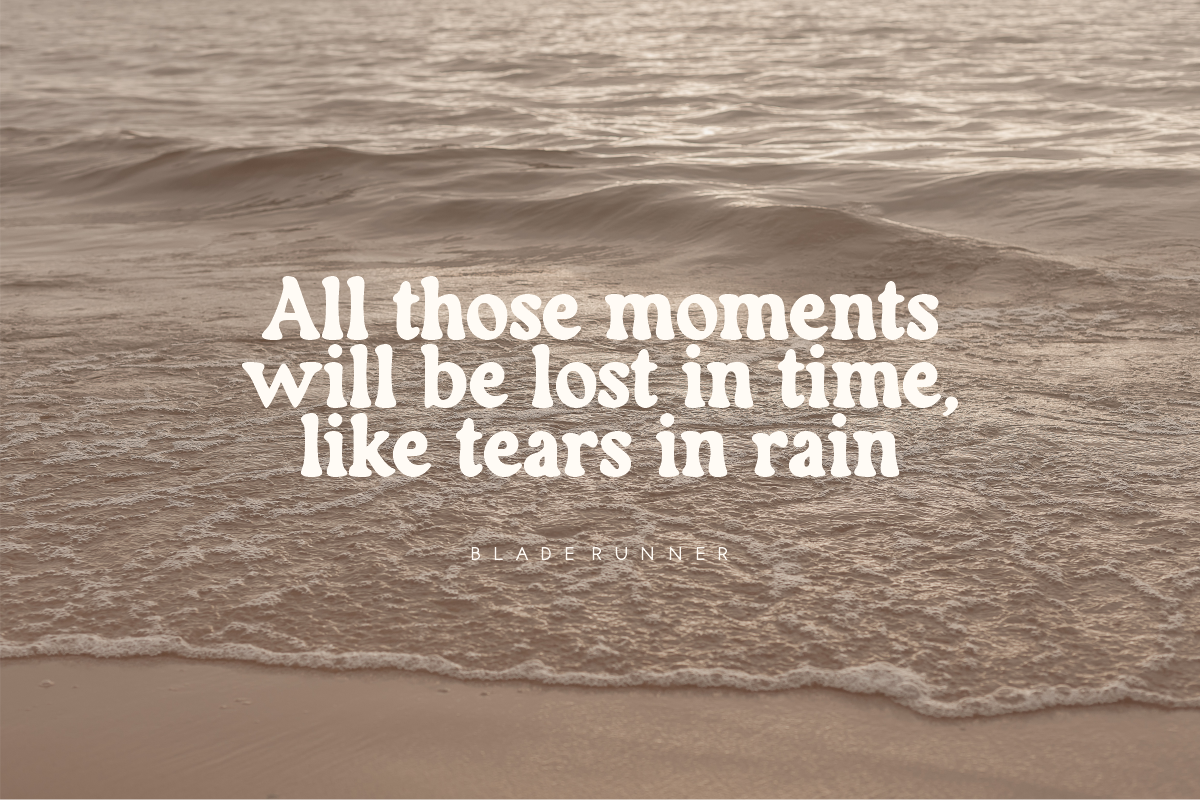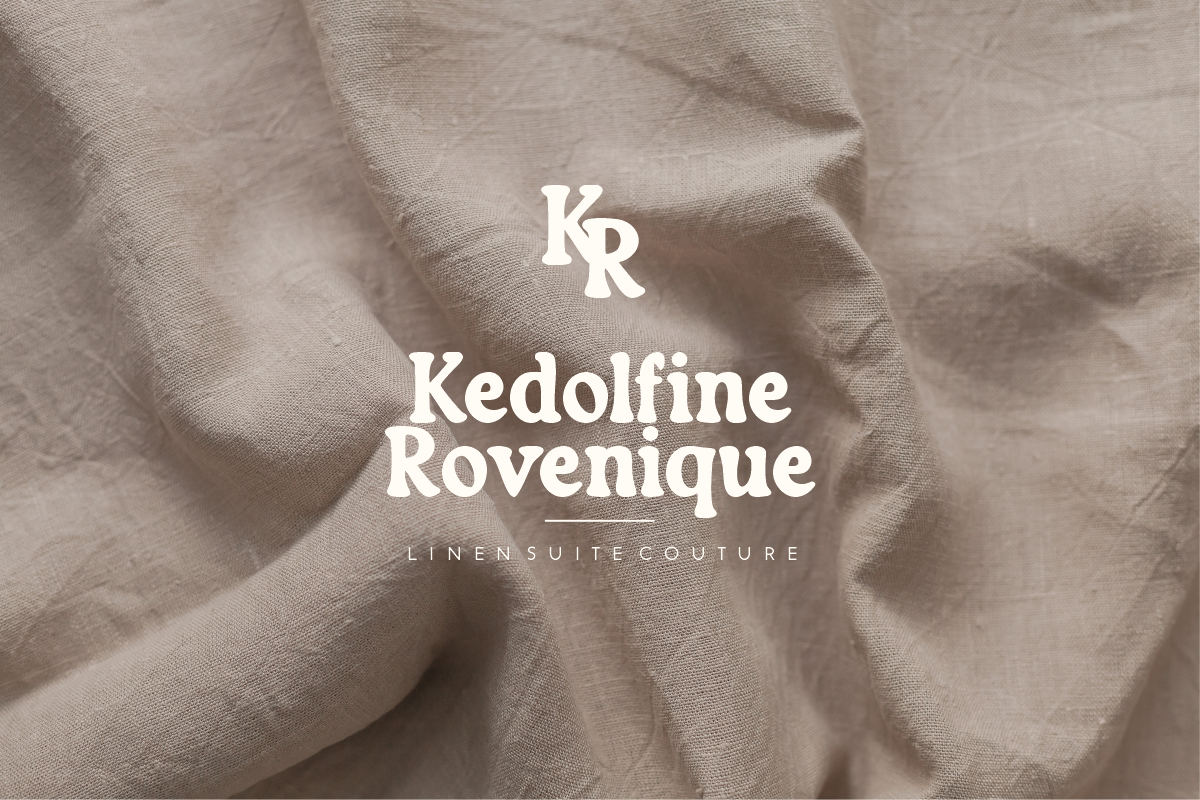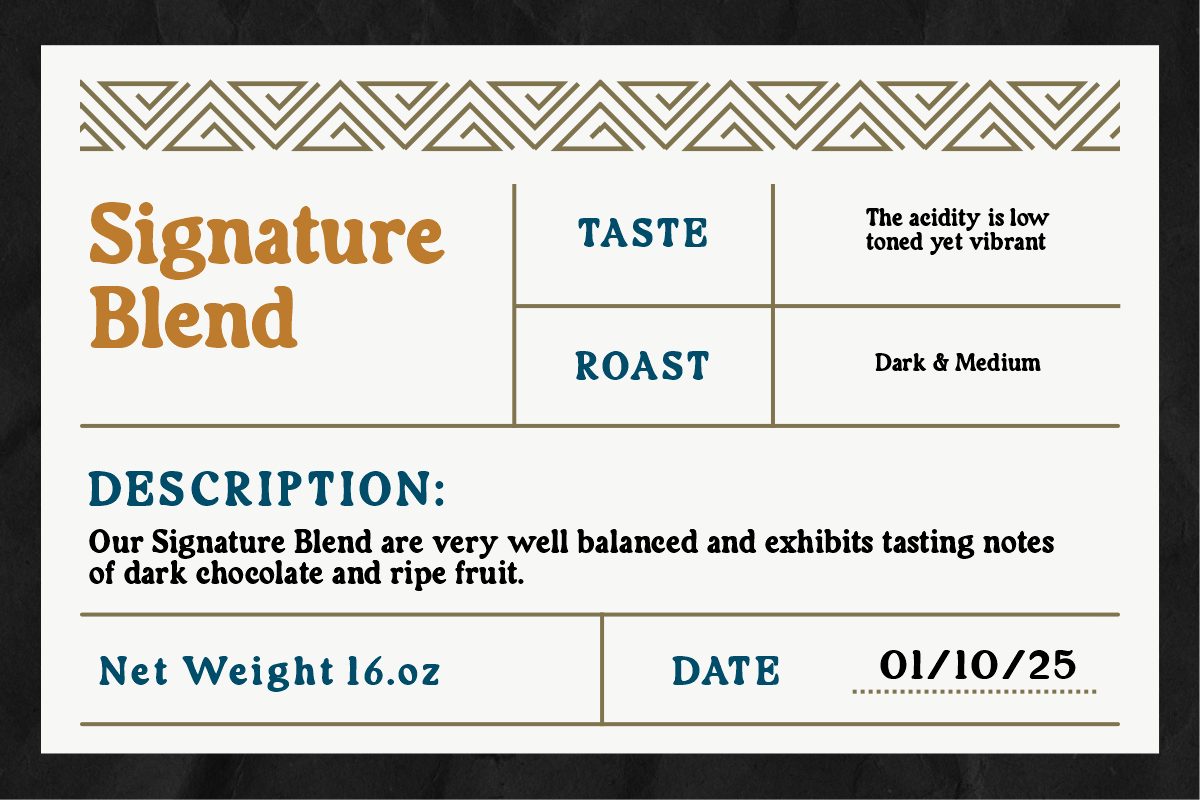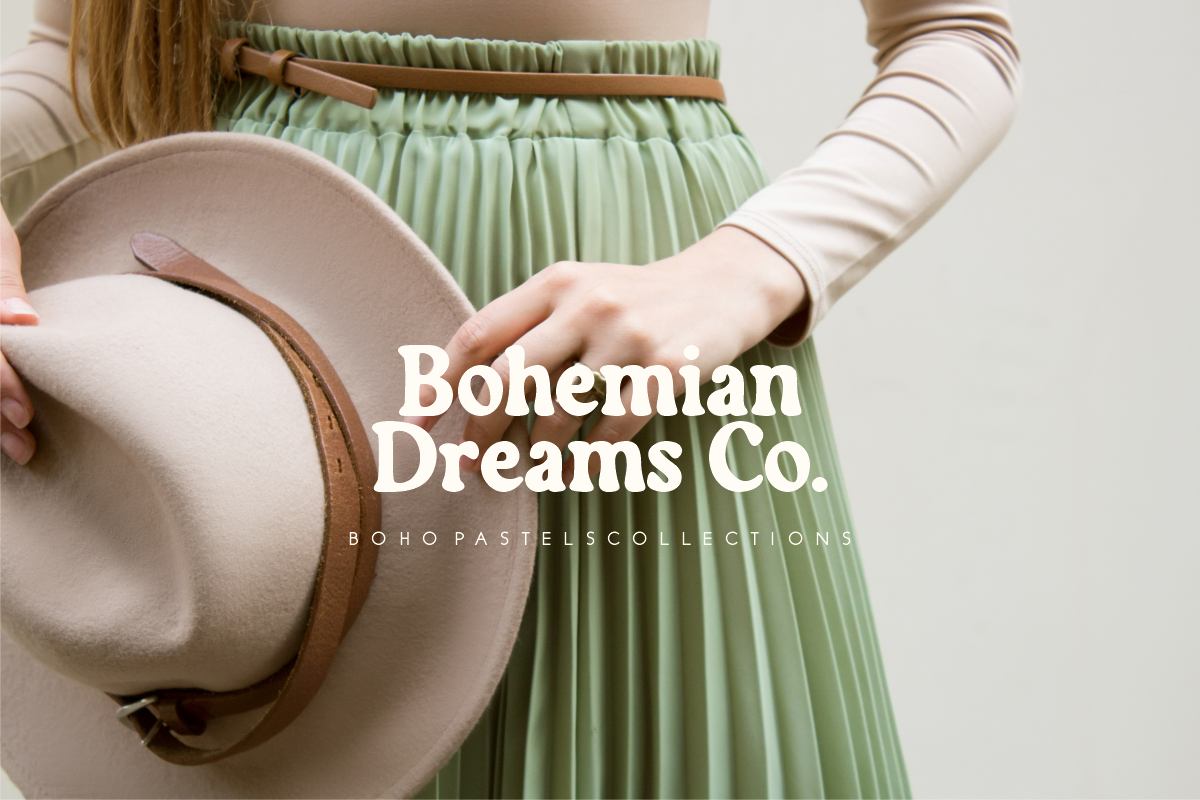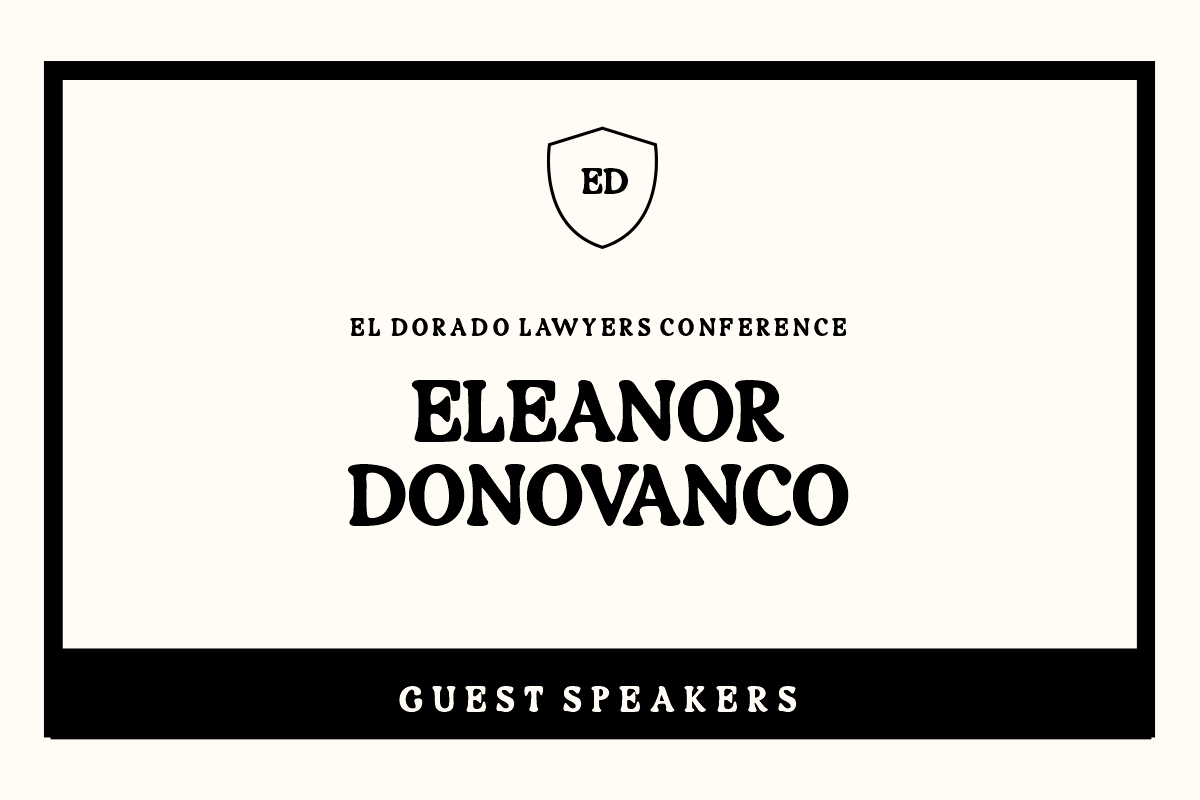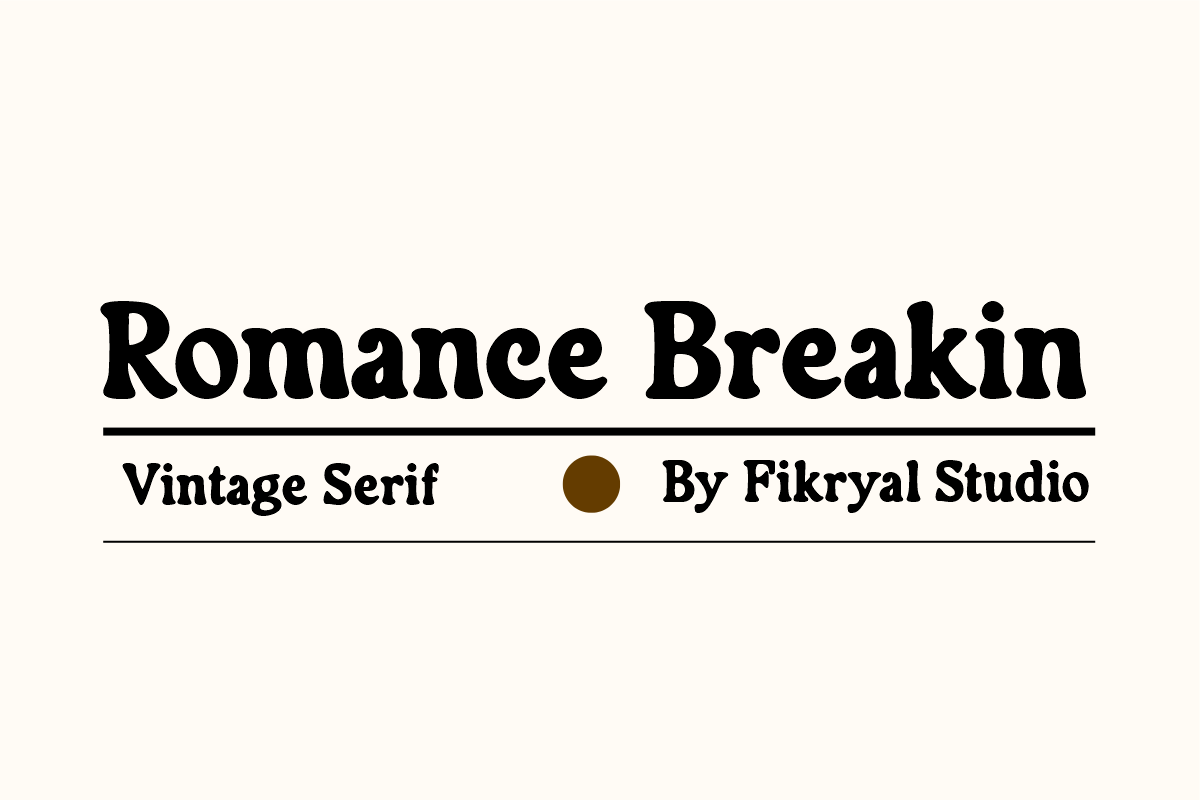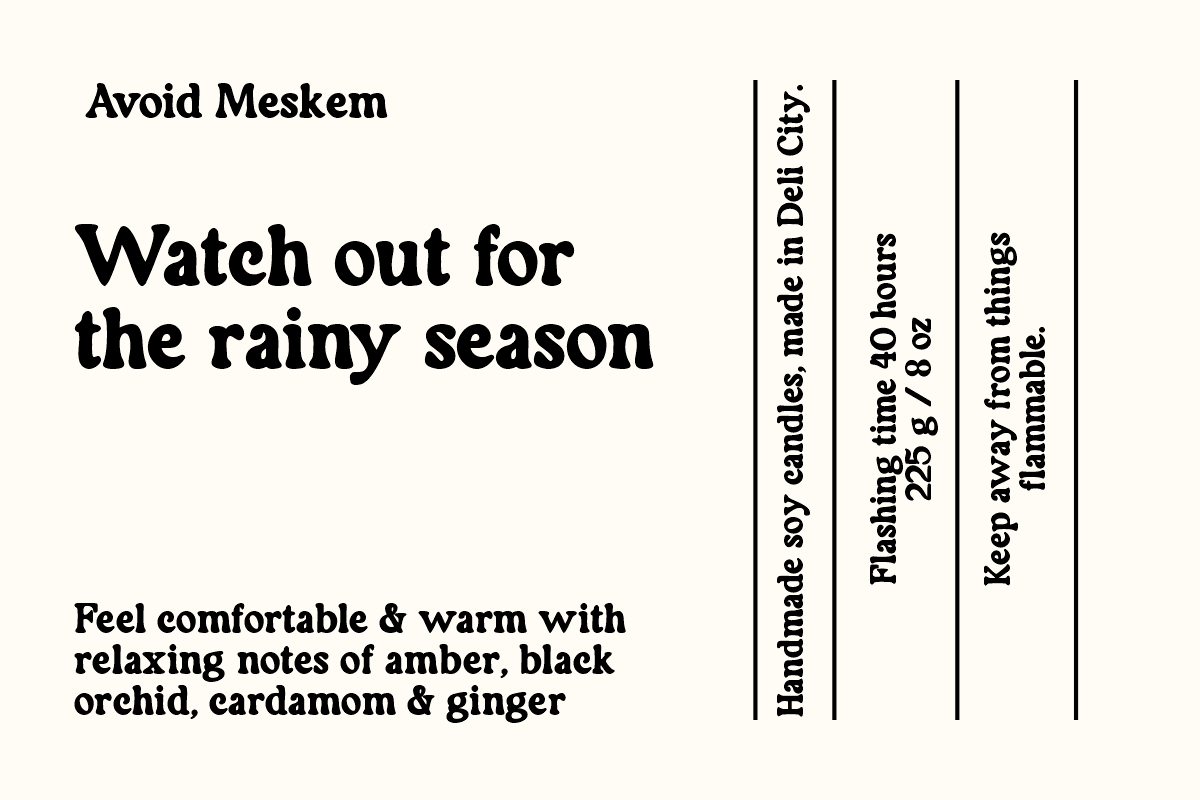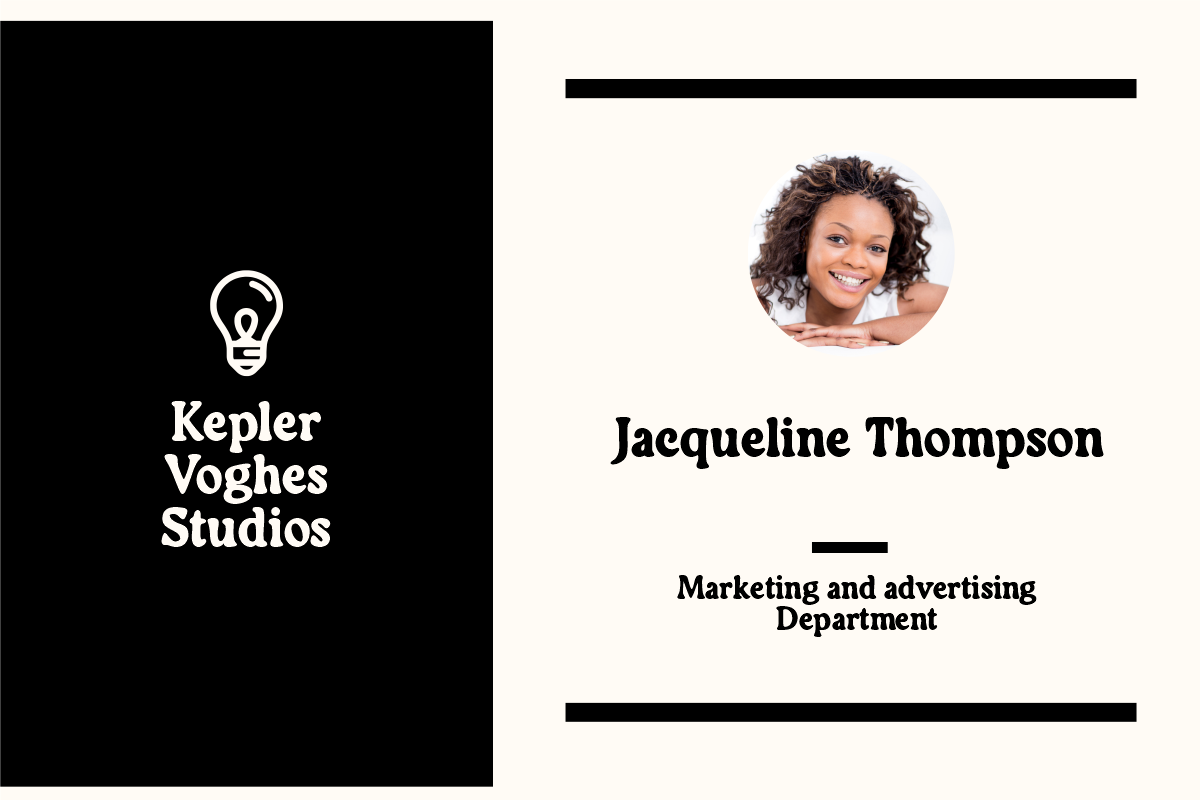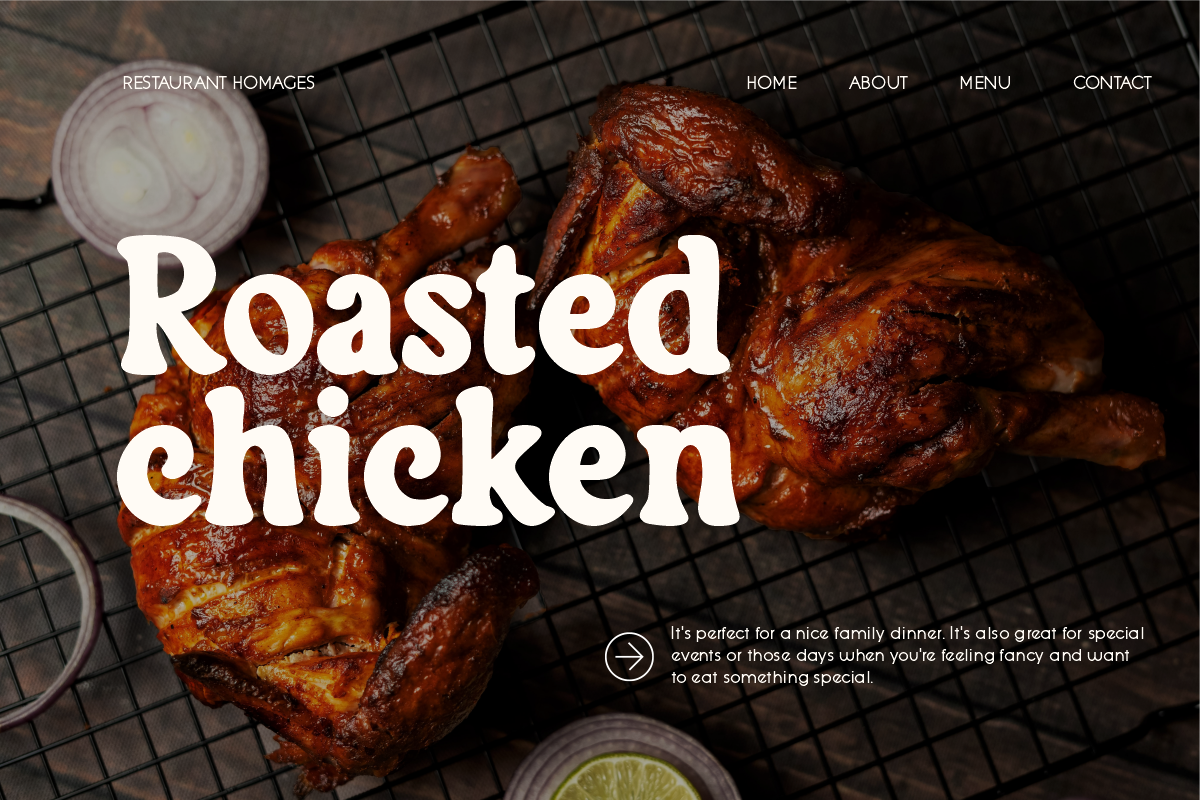
Romance Breakin Vintage Serif Font
Romance Breakin Vintage Serif Font is a type of serif font with a classic design inspired by the vintage era. The font has a characteristic bold line that looks elegant and gives a classy impression to every text display. The uniqueness of this font lies in its serif style, which gives an elegant and romantic touch to every word and sentence written with this font.
With its advantage in providing a vintage and romantic impression, “Romance Breakin” Vintage Serif Font is suitable for graphic design such as logos, letterheads, posters, greeting cards, or designs for social media. This font can also be used for design projects that require a classic and elegant touch, such as wedding party designs, invitations, and vintage-style related products.